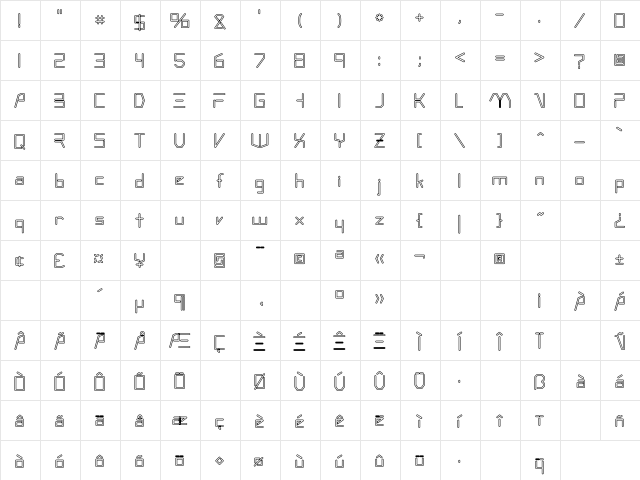
Rsandromed Hollow Regular
Design Context for Rsandromed Hollow Typeface
Rsandromed Hollow is a composed and adaptable typeface that performs quietly and consistently across a wide range of design contexts.